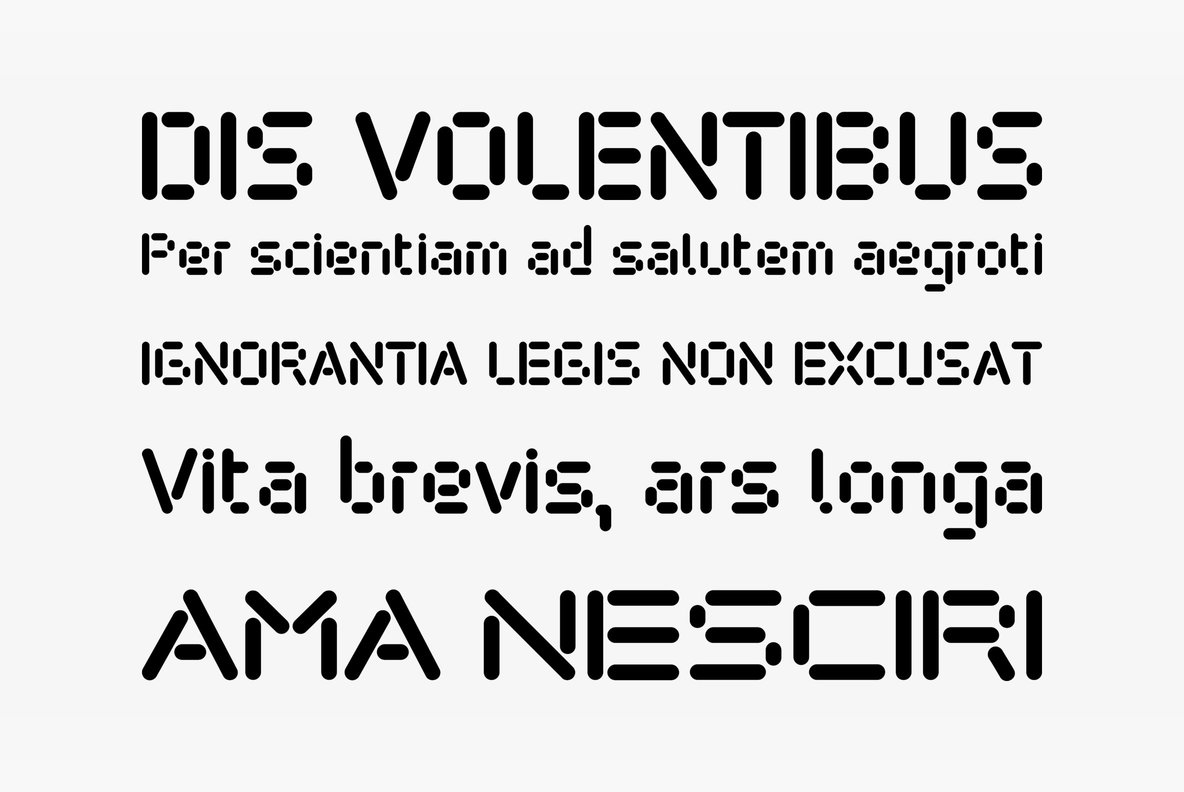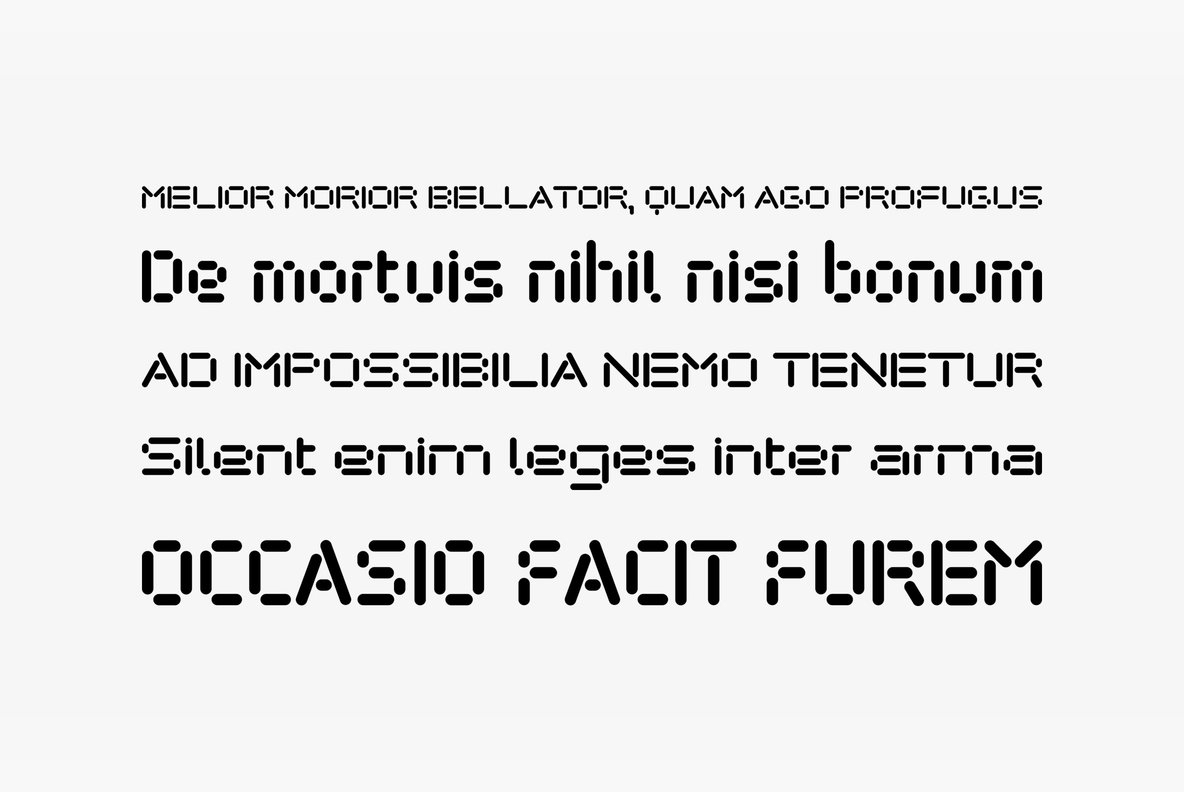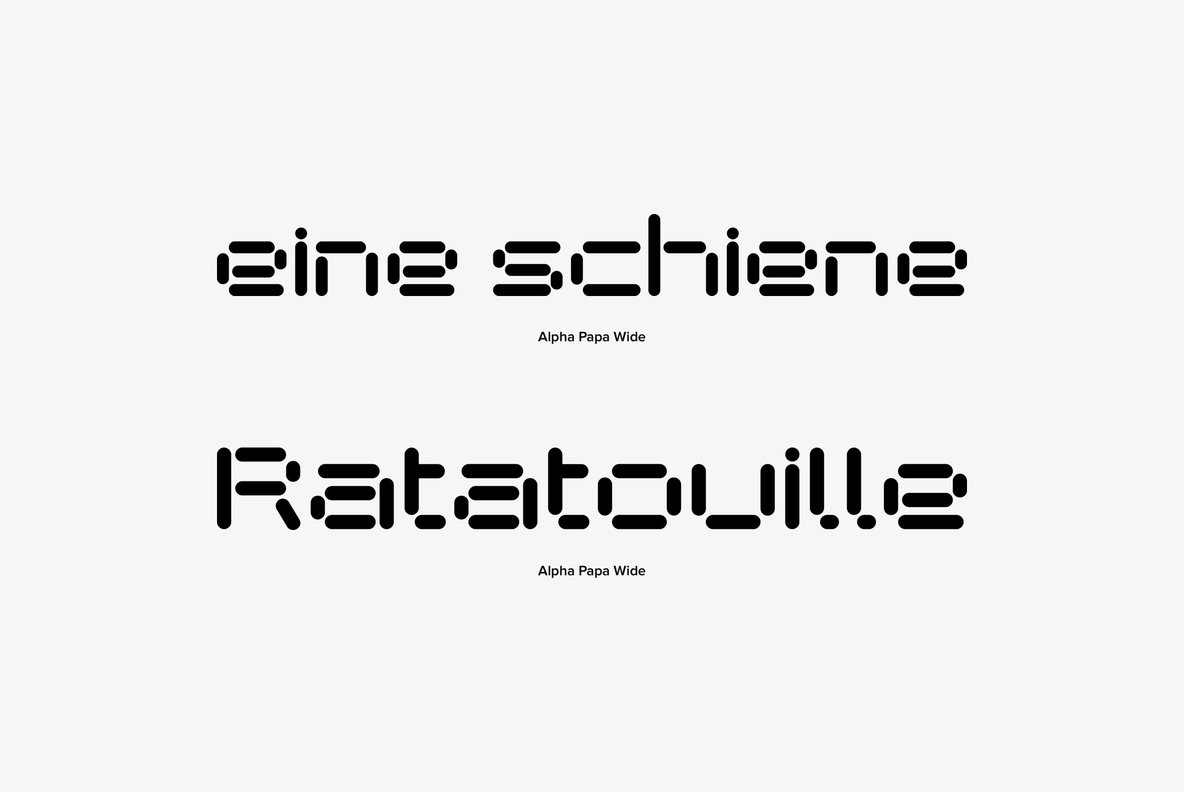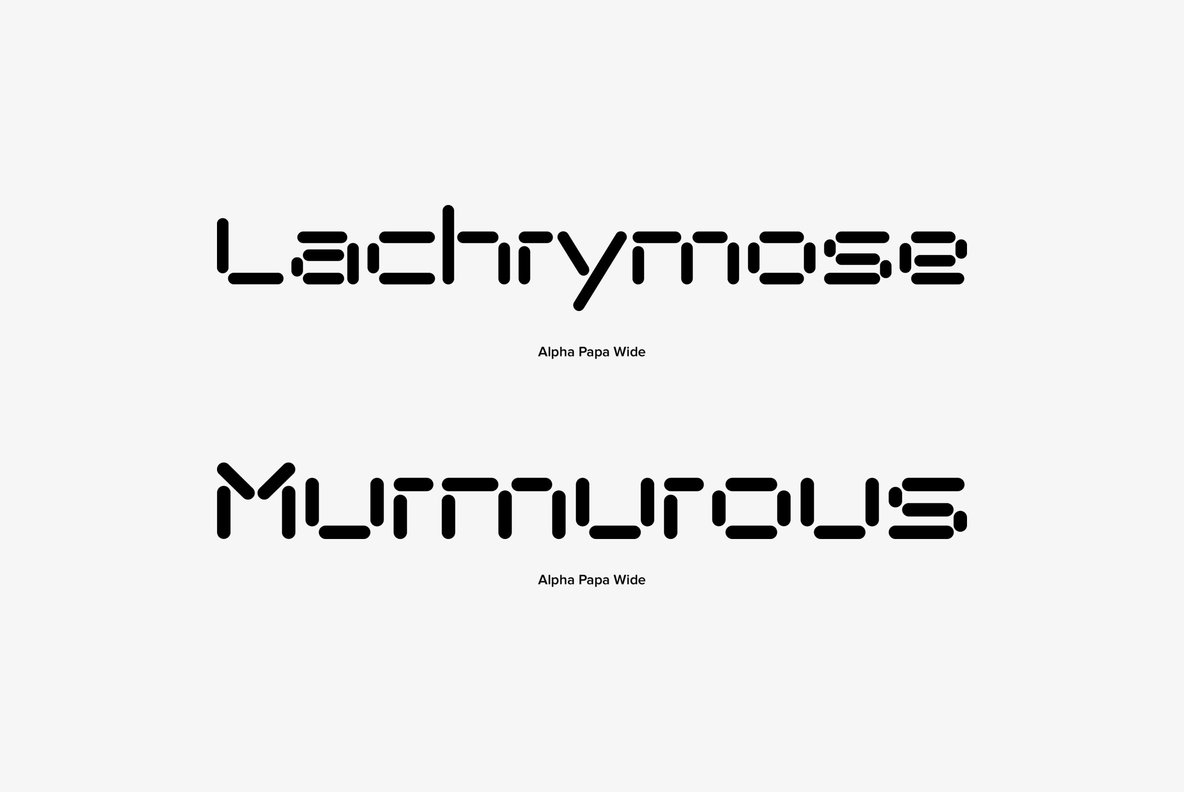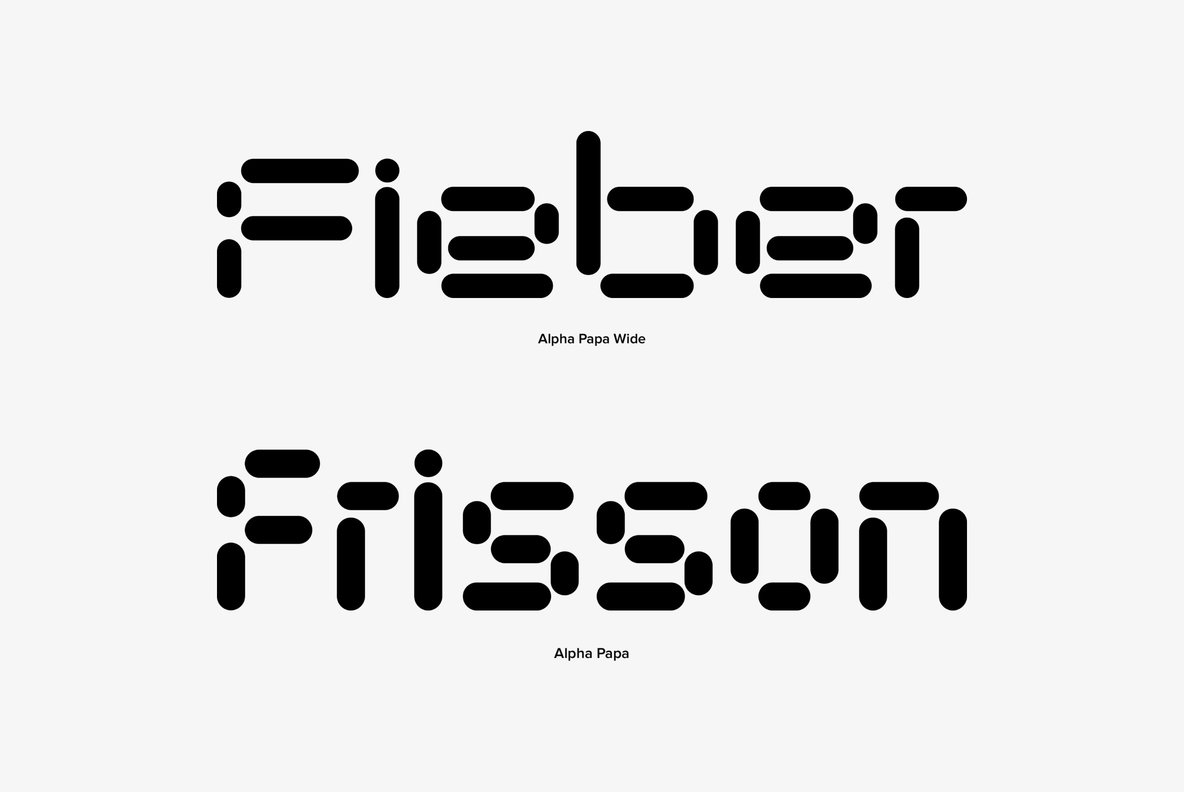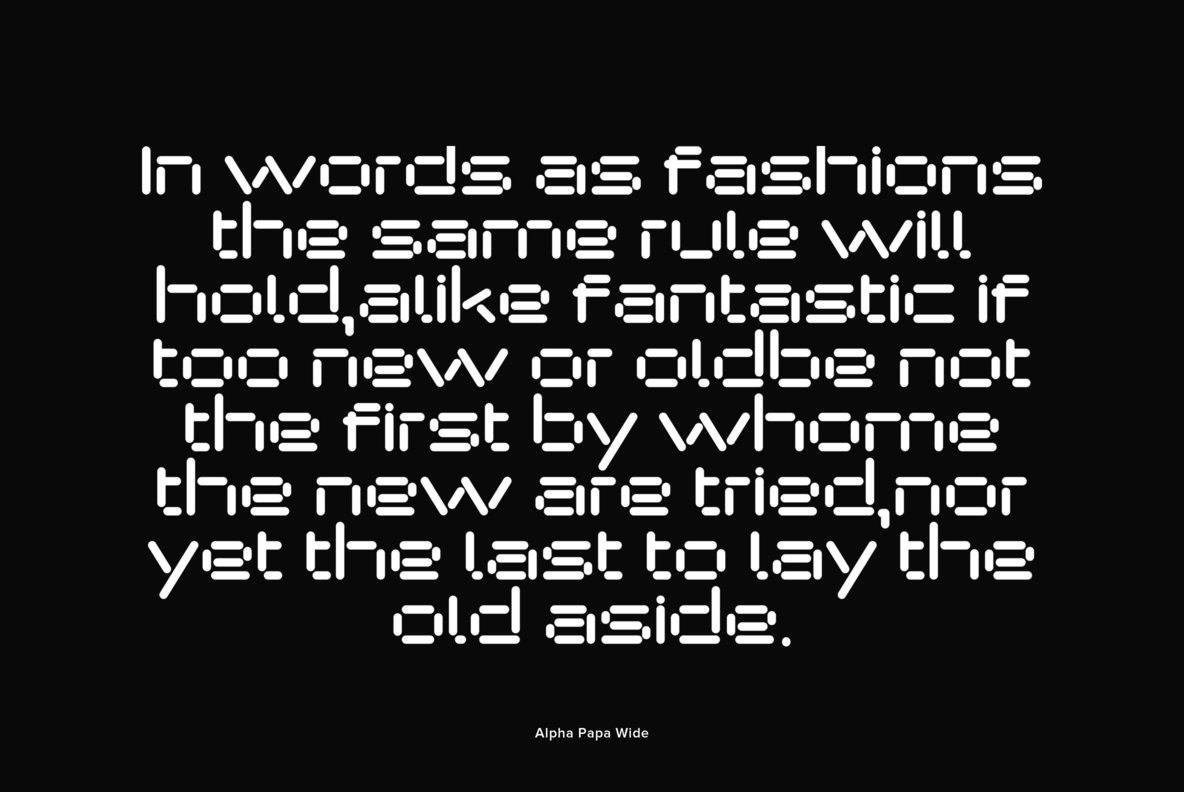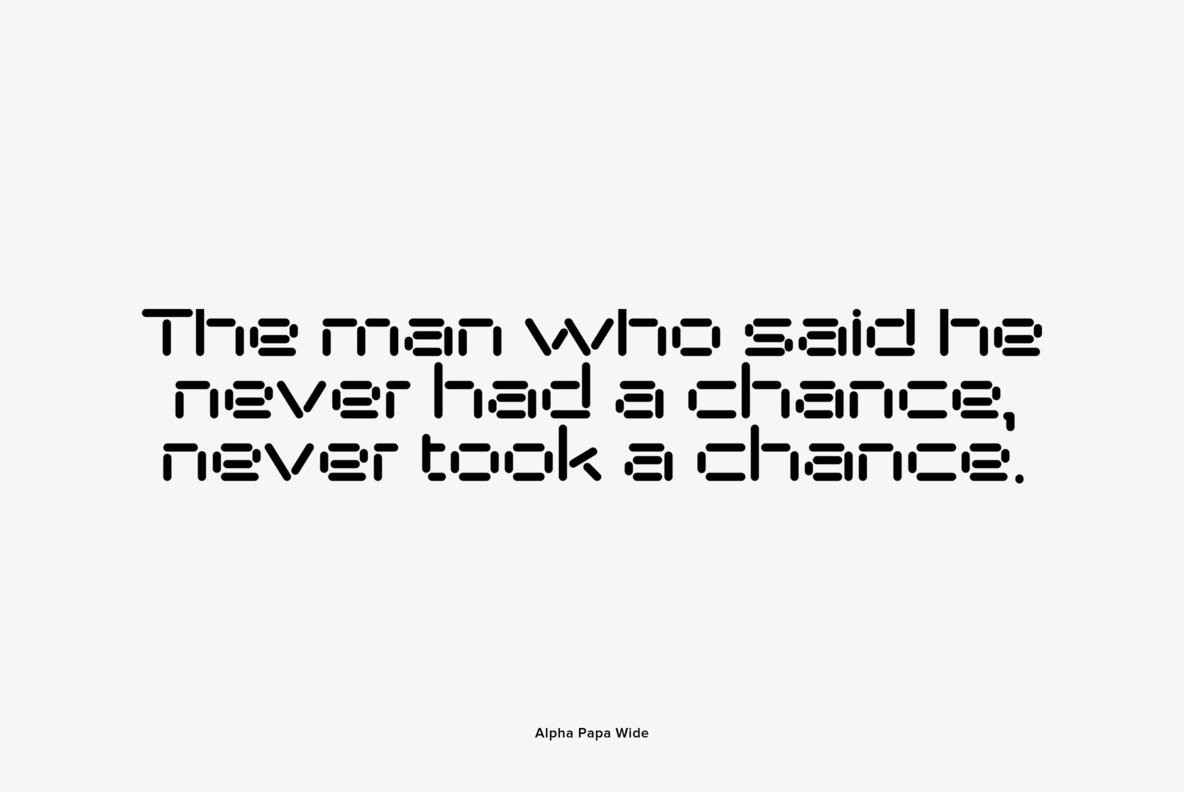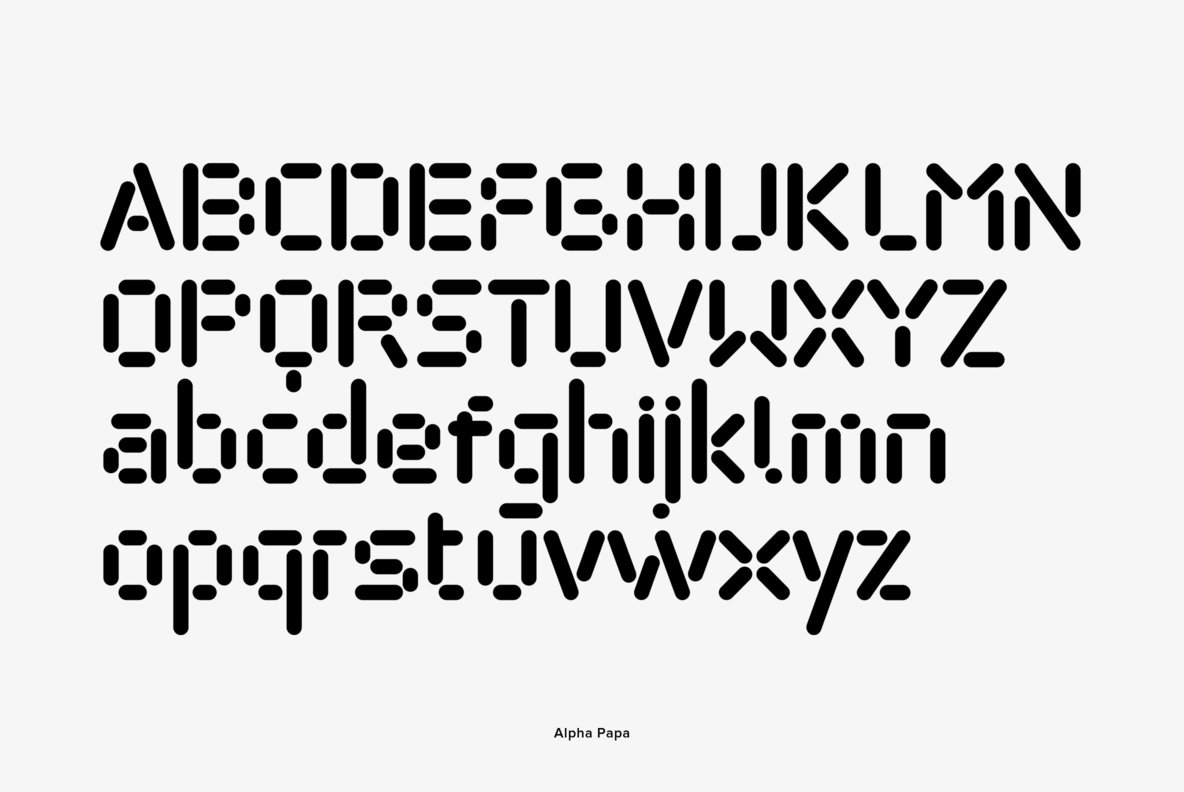
"Alpha Papa" is another font in my alpha-series, the experimental font series. It lents itself very good for all kind of modernistic occasions in all forms. You get 2 fonts (one alternative width set) for the price of one!